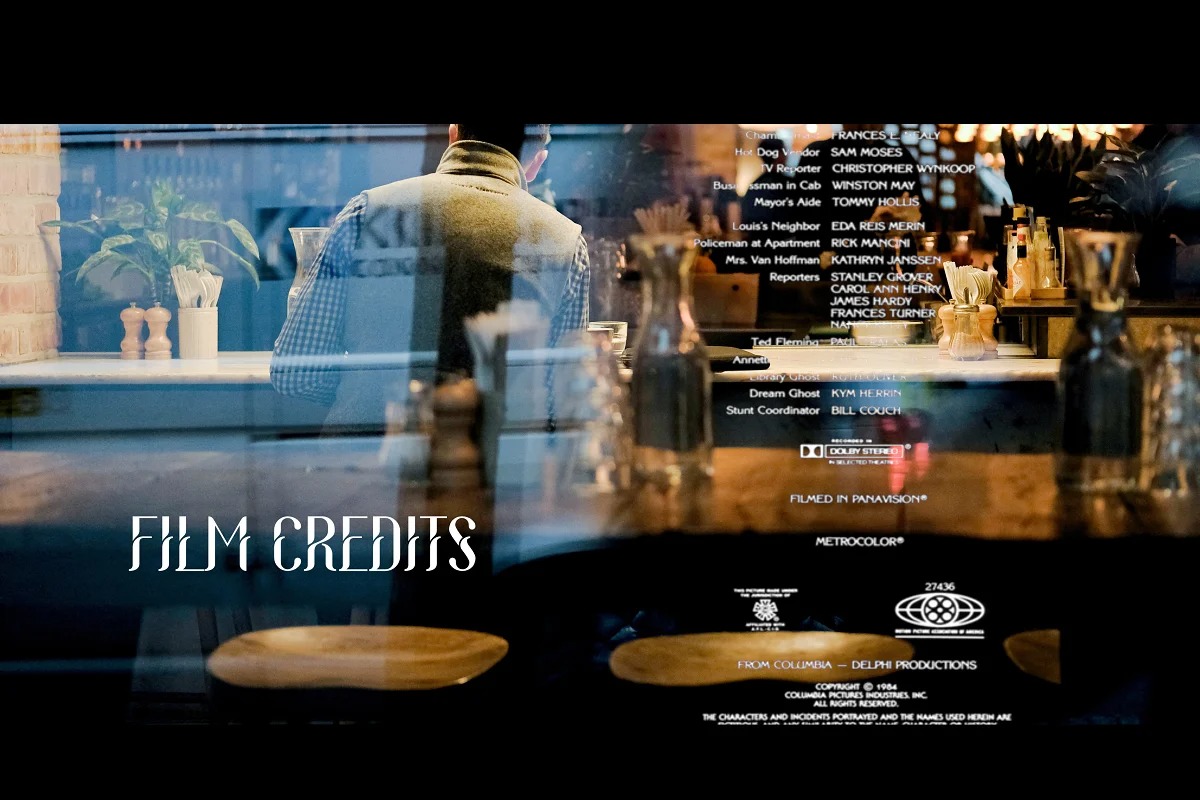
Eleanore Display Font
It’s a sophisticated display sans serif typeface from designer ikiikowrk. This font has unique and bold letterform, make it great to be used for modern and minimalistic design theme. This typeface is perfect for an elegant & luxury logo, book or movie title design, fashion brand, magazine, clothes, lettering, quotes, and so much more.